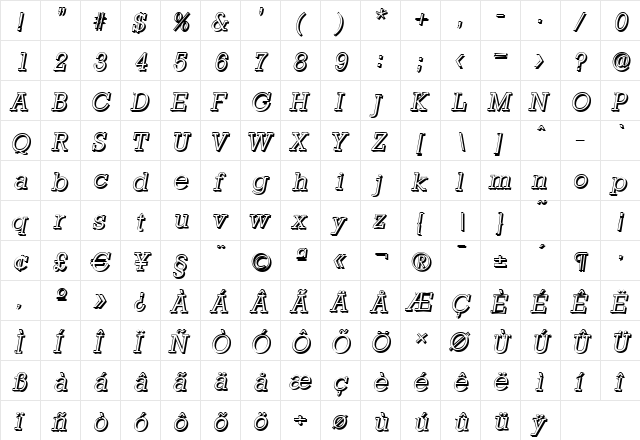
EugeneBeckerShadow-Light Italic Font Preview
Design Context for EugeneBeckerShadow-Light Typeface
EugeneBeckerShadow-Light is built around its visual character rather than neutral utility — its distinctive forms are designed to make an impression at display sizes. The dynamic lean of this cut emphasises speed and emphasis in any layout. Its slender proportions lend an understated elegance to any composition.
Font Pairing: Pair with a clean neutral sans-serif for body copy to let EugeneBeckerShadow-Light's character lead without overwhelming the composition.
Pro Tip: Use EugeneBeckerShadow-Light exclusively at display sizes — it was designed to be seen, not read at length. Let a neutral companion handle body copy.